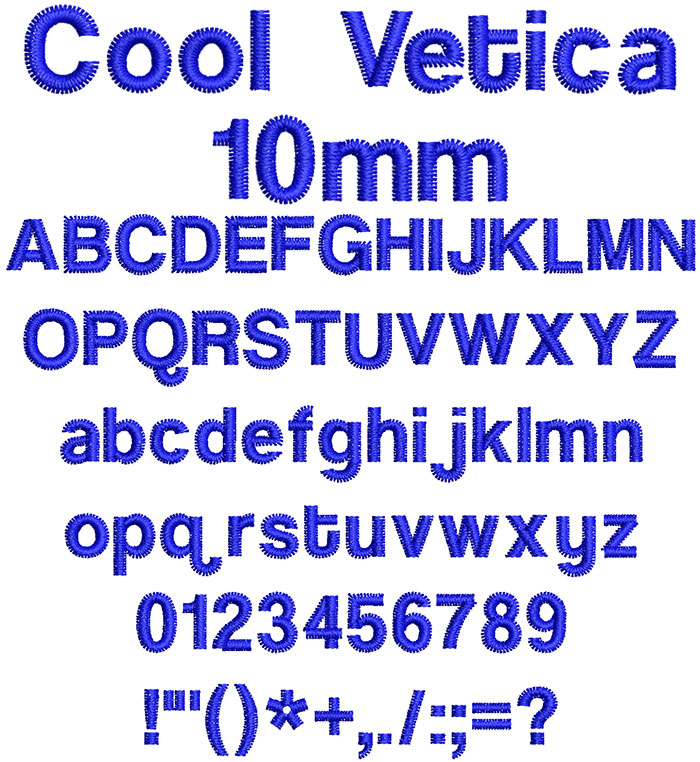
Cool Vetica Font - The coolvetica font has been downloaded 282,735 times. Explore coolvetica designed by ray larabie at adobe fonts. Coolvetica reimagines the retro custom display lettering style that dominated phototype catalogs of the era. Download and install the coolvetica font by typodermic fonts. A sans serif typeface with 14 styles, available from adobe fonts for sync and web.
The coolvetica font has been downloaded 282,735 times. A sans serif typeface with 14 styles, available from adobe fonts for sync and web. Coolvetica reimagines the retro custom display lettering style that dominated phototype catalogs of the era. Explore coolvetica designed by ray larabie at adobe fonts. Download and install the coolvetica font by typodermic fonts.
A sans serif typeface with 14 styles, available from adobe fonts for sync and web. Coolvetica reimagines the retro custom display lettering style that dominated phototype catalogs of the era. Explore coolvetica designed by ray larabie at adobe fonts. The coolvetica font has been downloaded 282,735 times. Download and install the coolvetica font by typodermic fonts.
A sans serif typeface with 14 styles, available from adobe fonts for sync and web. Explore coolvetica designed by ray larabie at adobe fonts. Coolvetica reimagines the retro custom display lettering style that dominated phototype catalogs of the era. The coolvetica font has been downloaded 282,735 times. Download and install the coolvetica font by typodermic fonts.
The coolvetica font has been downloaded 282,735 times. Explore coolvetica designed by ray larabie at adobe fonts. A sans serif typeface with 14 styles, available from adobe fonts for sync and web. Coolvetica reimagines the retro custom display lettering style that dominated phototype catalogs of the era. Download and install the coolvetica font by typodermic fonts.
Coolvetica reimagines the retro custom display lettering style that dominated phototype catalogs of the era. A sans serif typeface with 14 styles, available from adobe fonts for sync and web. Download and install the coolvetica font by typodermic fonts. The coolvetica font has been downloaded 282,735 times. Explore coolvetica designed by ray larabie at adobe fonts.
Coolvetica reimagines the retro custom display lettering style that dominated phototype catalogs of the era. A sans serif typeface with 14 styles, available from adobe fonts for sync and web. The coolvetica font has been downloaded 282,735 times. Explore coolvetica designed by ray larabie at adobe fonts. Download and install the coolvetica font by typodermic fonts.
Explore coolvetica designed by ray larabie at adobe fonts. A sans serif typeface with 14 styles, available from adobe fonts for sync and web. Coolvetica reimagines the retro custom display lettering style that dominated phototype catalogs of the era. Download and install the coolvetica font by typodermic fonts. The coolvetica font has been downloaded 282,735 times.
Explore coolvetica designed by ray larabie at adobe fonts. The coolvetica font has been downloaded 282,735 times. Coolvetica reimagines the retro custom display lettering style that dominated phototype catalogs of the era. A sans serif typeface with 14 styles, available from adobe fonts for sync and web. Download and install the coolvetica font by typodermic fonts.
The coolvetica font has been downloaded 282,735 times. Explore coolvetica designed by ray larabie at adobe fonts. Download and install the coolvetica font by typodermic fonts. A sans serif typeface with 14 styles, available from adobe fonts for sync and web. Coolvetica reimagines the retro custom display lettering style that dominated phototype catalogs of the era.
Explore coolvetica designed by ray larabie at adobe fonts. Coolvetica reimagines the retro custom display lettering style that dominated phototype catalogs of the era. Download and install the coolvetica font by typodermic fonts. A sans serif typeface with 14 styles, available from adobe fonts for sync and web. The coolvetica font has been downloaded 282,735 times.
Coolvetica reimagines the retro custom display lettering style that dominated phototype catalogs of the era. The coolvetica font has been downloaded 282,735 times. Download and install the coolvetica font by typodermic fonts. Explore coolvetica designed by ray larabie at adobe fonts. A sans serif typeface with 14 styles, available from adobe fonts for sync and web.
A sans serif typeface with 14 styles, available from adobe fonts for sync and web. The coolvetica font has been downloaded 282,735 times. Explore coolvetica designed by ray larabie at adobe fonts. Coolvetica reimagines the retro custom display lettering style that dominated phototype catalogs of the era. Download and install the coolvetica font by typodermic fonts.
Coolvetica Reimagines The Retro Custom Display Lettering Style That Dominated Phototype Catalogs Of The Era.
A sans serif typeface with 14 styles, available from adobe fonts for sync and web. Download and install the coolvetica font by typodermic fonts. The coolvetica font has been downloaded 282,735 times. Explore coolvetica designed by ray larabie at adobe fonts.